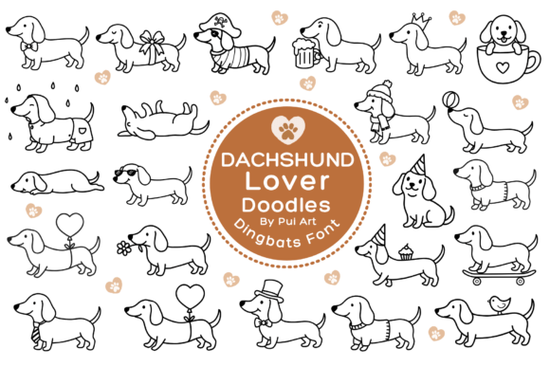
If you're looking for a lighthearted, pet-friendly font that adds personality without overwhelming your layout, the Dachshund Lover Doodles Font is a thoughtful choice especially if you design for dog lovers or create pet-themed products. It’s not a traditional alphabet font; instead, it’s a dingbats font filled with hand-drawn dachshund illustrations in cheerful, relaxed poses think curled up, wagging, peeking out, or wearing tiny bows. Because it’s built as a font file (OTF and TTF), you can type characters to access each doodle instantly no clipping masks, layers, or vector imports needed.
Who actually uses this kind of font?
This isn’t just for “cute” projects it solves real workflow needs. Designers building greeting cards for pet birthdays often need quick, cohesive graphics that match their typography. Crafters using Cricut or Silhouette machines appreciate fonts that cut cleanly and scale smoothly across vinyl, iron-on, or sublimation blanks. Print-on-demand sellers use them to add subtle charm to mugs, tote bags, or nursery prints without licensing headaches since Creative Fabrica grants commercial use with standard licensing.
Small business owners who sell handmade dog bandanas or custom pet portraits sometimes struggle to find illustrations that feel warm but still work at small sizes. These doodles hold detail even at 12–16pt, and their slightly uneven, hand-drawn lines give them authenticity no sterile clipart vibe here.
How does it fit into real projects?
You’ll likely reach for Dachshund Lover Doodles when you want to reinforce a theme without adding extra files. For example:
- A baby shower invitation where the “W” in “Welcome” is replaced with a dachshund wearing a bow typed directly in Canva or Illustrator.
- A set of matching stickers: one says “Dachshund Dad,” another shows a sleeping pup both built from the same font file.
- Nursery wall art that pairs short phrases (“Goodnight, Wienie”) with supporting doodles all aligned, spaced, and scalable using font metrics.
- Sublimation-ready mug designs where consistency matters: same line weight, same style, same spacing because it’s all one font family.
One thing to keep in mind: because these are dingbats (not letters), you won’t find A–Z in the usual places. Instead, each key on your keyboard maps to a different pose check the included PDF guide to see which character gives you the pup with paws up vs. the one holding a bone. Most users open the guide once, then type intuitively after that.
Is it right for your shop or studio?
Ask yourself:
- Do you regularly make pet-related digital downloads or physical goods? → Yes, this supports consistent branding across product lines.
- Do you prefer working with fonts over individual SVGs? → Yes fewer files to manage, faster edits, easier resizing.
- Do your customers respond well to handmade, approachable visuals? → Yes the slight wobble in the lines feels human, not AI-generated.
If you’ve ever spent time hunting for “dog clipart that doesn’t look dated” or “dachshund vectors that scale well for embroidery,” this font simplifies that search. It’s not meant to replace detailed illustrations but it reliably delivers joyful, on-brand moments without slowing you down.